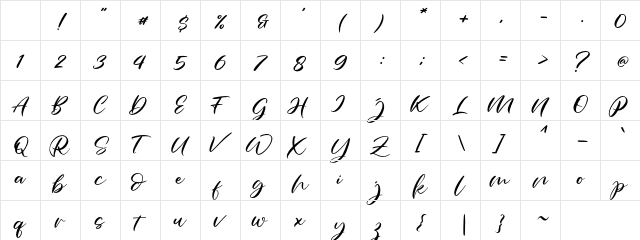
parahyang is a composed and adaptable typeface that performs quietly and consistently across a wide range of design contexts.
Pro Tip: Use parahyang in both headline and body roles to test its range before committing to a single application.